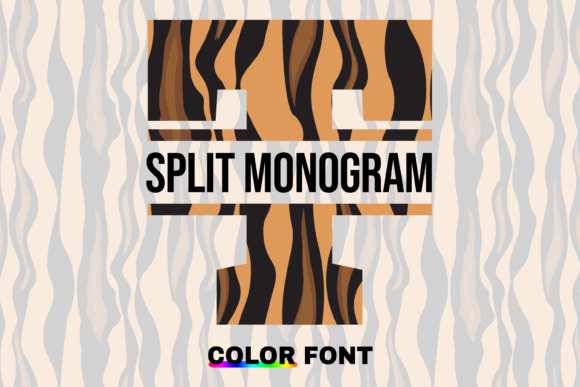
In the vast realm of design, where creativity knows no bounds, Tiger Split Font blossoms as a vibrant beacon of artistic expression. With its delightful tiger-themed carvings, this captivating font takes you on a whimsical journey through a world of imagination. Whether you're a seasoned designer or just starting your creative odyssey, Tiger Split Font empowers you to weave enchanting tales through the strokes of your keys.
Immerse yourself in a world where every letter dances with life, where each word reverberates with the playful spirit of the jungle's most beloved creature. Let your creativity run wild as you craft captivating headlines, design eye-catching logos, or create irresistibly charming invitations. With Tiger Split Font, the possibilities are boundless.
As you explore this extraordinary font, you'll discover a symphony of colors woven into its very essence. Each letter bursts with vibrant hues, harmonizing perfectly to create a captivating visual masterpiece. It's like having a rainbow at your fingertips, ready to infuse your designs with an unmatched vibrancy.
This remarkable font not only captivates the eyes but also captures the hearts. Its playful and friendly demeanor adds a touch of warmth and personality to any project. Imagine your audience's delight as they encounter your designs adorned with Tiger Split Font, a font that speaks volumes without uttering a single word.
So, embark on an extraordinary journey with Tiger Split Font, where creativity dances to the beat of your imagination. Transform your designs into captivating works of art, leaving a lasting impression that resonates with your audience. Unleash the power of this extraordinary font and let your creative spirit soar to new heights.